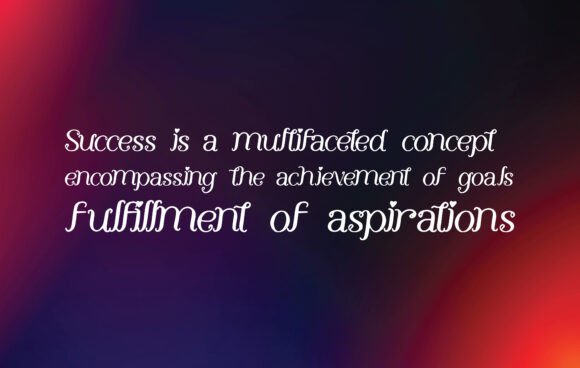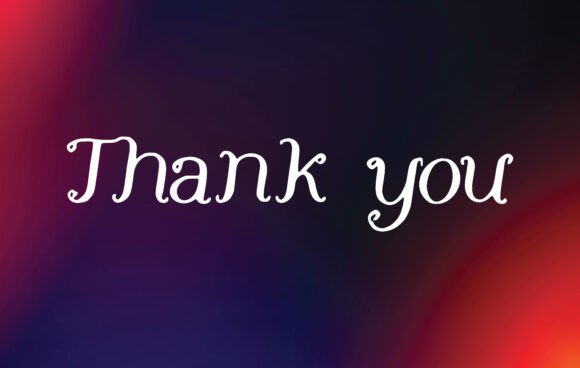
The Designer’s Delight: Cassius Font
Ah, the elusive perfect font. You know, that one that makes your design project go from meh to mesmerizing. I’ve been there, done that, and got the t-shirt (which, by the way, was designed with a fabulous font). One of my most memorable design struggles was working on a branding project for a trendy boutique. My client wanted a logo that exuded elegance and playfulness, but I was stuck in a font rut. That was until I stumbled upon the stunning Cassius font.
A Love Affair with Cassius
Cassius is a lovely and beautiful handwritten font that has the potential to take your creative ideas to the highest level. It’s the best choice for creating eye-catching logos, branding, and quotes. Here’s what I love about it:
- ✨ Elegant and cursive, with a touch of sophistication
- 💫 Perfect for branding, logos, and social media graphics
- 🎨 Versatile and works well with a variety of design styles
The Not-So-Perfect Truth
No font is perfect, and Cassius is no exception. Here are a few quirks to keep in mind:
- 🤔 Limited availability of stylistic alternates (but what’s available is gorgeous)
- ⚠️ May not be the best choice for body text due to its elegant, cursive nature
- Experiment with OpenType features like ligatures and stylistic alternates to add some flair to your design.
The Story Behind Cassius
Cassius was designed with the intention of bringing a touch of elegance and sophistication to any design project. Inspired by classic calligraphy and modern typography, Cassius aims to bridge the gap between traditional and contemporary design. While the actual designer behind Cassius might be shrouded in mystery, their creation has undoubtedly captured the hearts of designers worldwide.
- Q: Is Cassius suitable for body text?
- A: While Cassius is highly legible, its elegant and cursive nature makes it better suited for headings and short text passages.
- Q: Does Cassius support OpenType features?
- A: Yes, Cassius supports OpenType features, including ligatures, stylistic alternates, and glyphs.